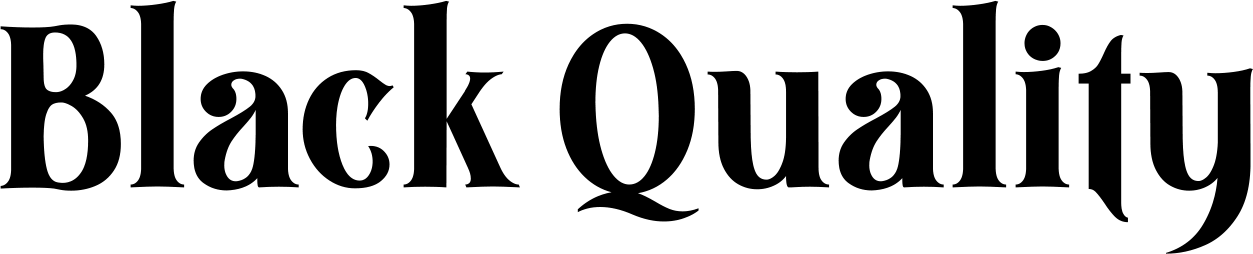
Black Quality Font
Black Quality font is a modern and luxurious font style that gives your design an eye-catching beauty. This luxury font will be a great and unique option for designing invitation cards.
We suggest using this font to design jewelry, watches, and especially perfume glass labels. Also, feel free to use it in many fashion magazines, websites, social media, and logotypes.